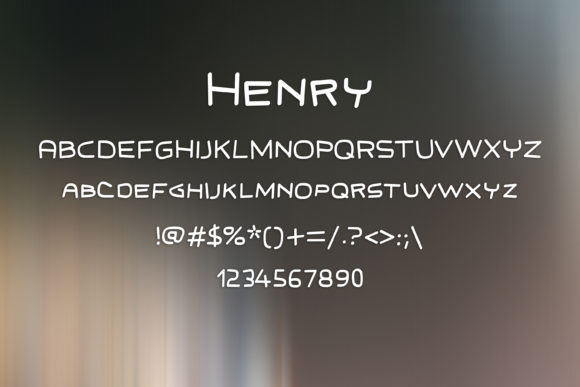
Discover the Joy of Headline Design with Henry Font
Have you ever found yourself staring at a blank page, struggling to come up with the perfect headline to grab your audience’s attention? We’ve all been there. Sometimes, it’s the smallest details that can make all the difference. For designers, the right font can be the key to unlocking a design that truly pops.
Enter Henry Font, a quirky sans serif-style display font that’s designed to add a touch of whimsy and personality to your headlines. With its bouncy and round letters, Henry Font is perfect for titles, headings, and any other design element where you want to make a statement.
Whether you’re working on a project that needs a playful touch or a bold, eye-catching look, Henry Font is a valuable addition to any designer’s toolkit. Its versatility and unique character make it an ideal choice for creatives who want to stand out from the crowd.
Key Features of Henry Font
- Font Family: Henry Font is a sans-serif font family designed specifically for digital use. It comes in three weights: Light, Regular, and Bold.
- Character Set: Henry Font supports a wide range of languages, including Latin, Cyrillic, and Greek alphabets, making it a versatile choice for global audiences.
- Unique Characteristics: Henry Font features a modern, clean design with a subtle rounded edge, making it an ideal choice for digital products, such as mobile apps, websites, and software interfaces.
Henry Font Review
As a designer, I’ve had the chance to work with the Henry Font, and I must say, it’s a solid choice for body text. ✨ The font is clean, legible, and has a modern feel to it. It’s also quite versatile, making it suitable for a wide range of applications, from digital displays to print materials. ✨ The font is also highly customizable, with a range of weights and styles to choose from, which makes it easy to achieve the desired look and feel.
However, there are a few limitations to consider. ⚠️ The font can sometimes feel a bit generic, lacking the unique character that some other fonts possess. Additionally, the font may not be as effective for titles or headings, where a more dramatic or attention-grabbing font may be needed. ⚠️
Overall, I would give the Henry Font a solid 4 out of 5 stars. It’s a reliable choice for body text and can be a good addition to any design project. However, it may not be the best choice for projects that require a more unique or attention-grabbing font.
- Works well for body text
- Modern and clean feel
Henry Font Practical Application Guide
Tip: Use Henry Font to add a vintage touch to your designs, especially for invitations, posters, and social media graphics.
Tip: Use Henry Font to create custom typography for logos, branding materials, and editorial designs.
Tip: Use Henry Font to add a touch of elegance to your presentations, reports, and documents.
Henry Font is commonly used for:
– Vintage-inspired designs
– Luxury branding materials
– Editorial and publishing designs
Alternatives to Henry Font
Playfair Display is an elegant and luxurious script font. It’s perfect for titles and headings where you want to add a touch of sophistication and class. It’s ideal for high-end fashion, luxury brands, and any project that requires a sense of grandeur.
Compared to Henry Font, Playfair Display is more ornate and elaborate, making it a better choice for projects that require a high level of visual impact.
Merriweather is a classic serif font that exudes a sense of tradition and timelessness. It’s perfect for body text and is suitable for a wide range of projects, from books to websites. It’s also highly legible, making it an excellent choice for long blocks of text.